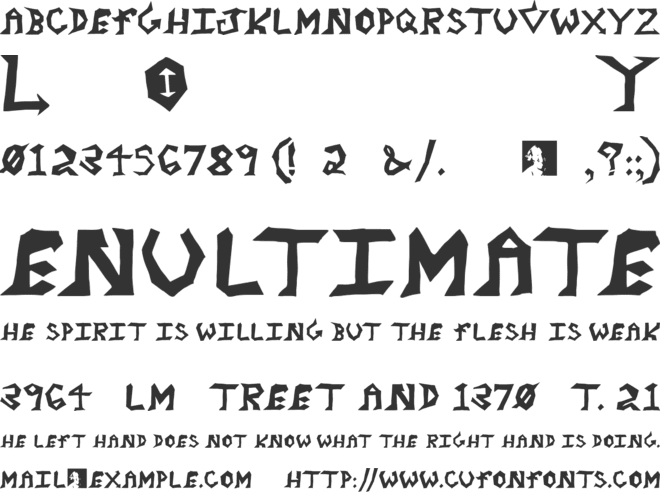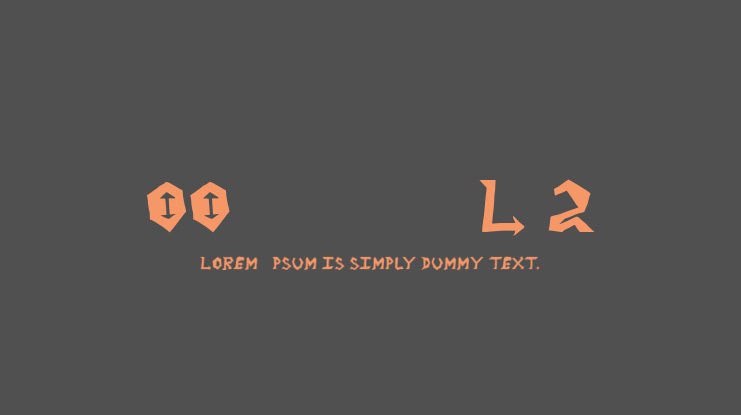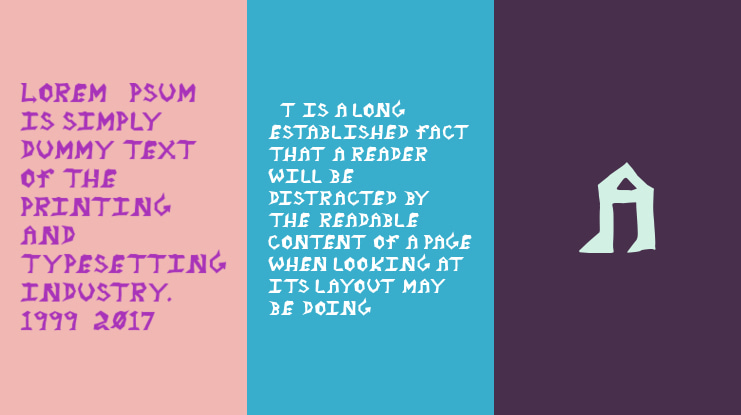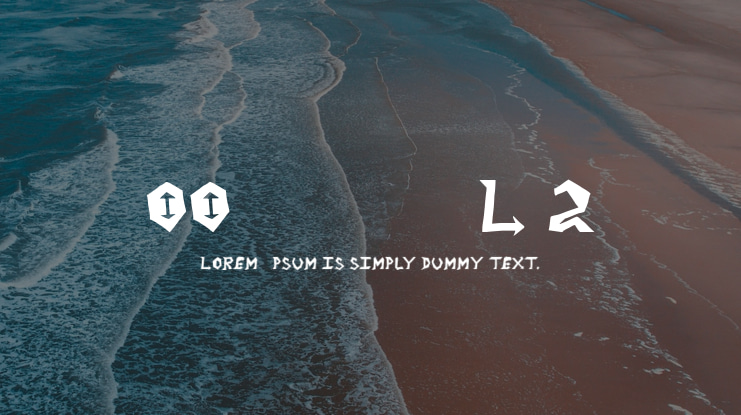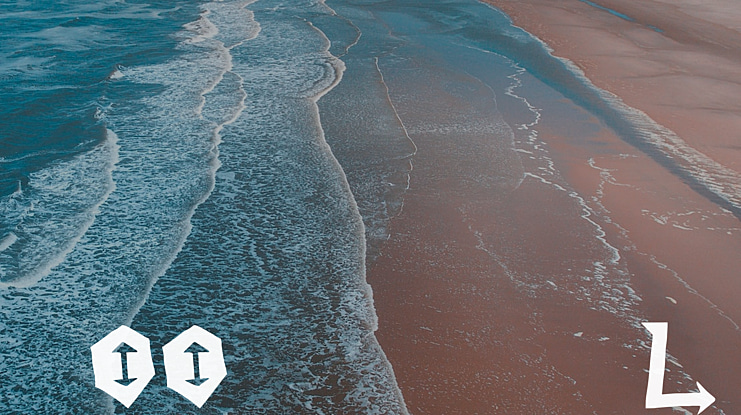
GOODVANDAL 2 Font
The typeface accompanying Lnx's 2023 album "GOODVANDAL" was meticulously crafted. Each character was hand-drawn and then digitally enhanced for a seamless design. This font serves as an excellent example of how unique typography can elevate everyday "notes" into something extraordinary.